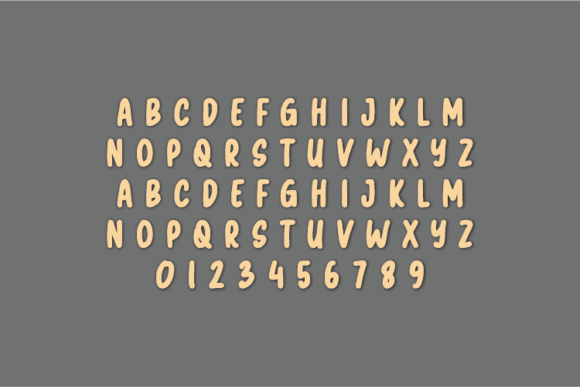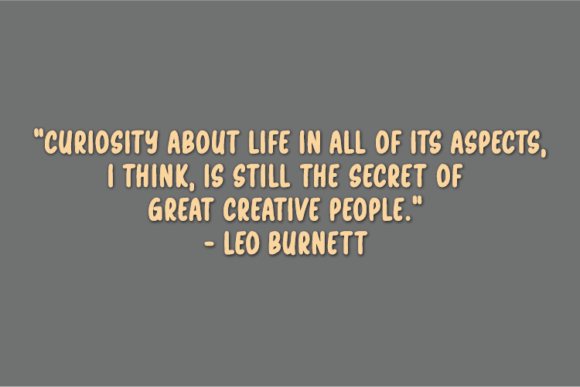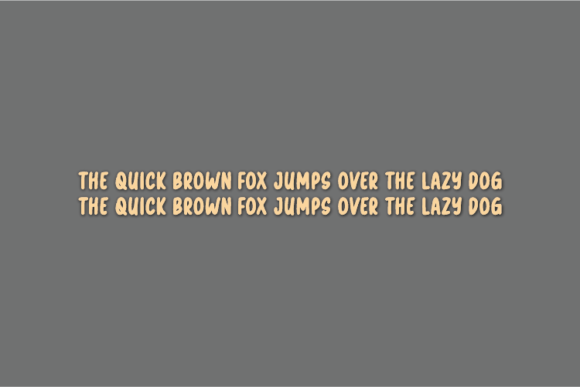
Introducing Caramelo Font: The Ultimate Handwritten Font for Designers and Crafters
Are you tired of using the same old fonts in your designs? Look no further than Caramelo Font, an adaptable and clean handwritten font that’s perfect for a wide range of projects. With its natural and unique style, Caramelo is incredibly fitting for a large pool of designs, and the only limit is your imagination!
What Makes Caramelo Font So Special?
Caramelo Font is a beautifully crafted handwritten font that’s designed to add a touch of elegance and sophistication to any design. Its clean and adaptable style makes it perfect for use in a variety of projects, from wedding invitations and branding materials to blog posts and social media graphics.
One of the standout features of Caramelo Font is its unique and natural style. Unlike other fonts that can look stiff or artificial, Caramelo has a warm and inviting feel that’s sure to capture the attention of your audience. Whether you’re looking to create a bold statement or a subtle impression, Caramelo Font is the perfect choice.
The Benefits of Using Caramelo Font
So why should you choose Caramelo Font for your next design project? Here are just a few of the benefits you can expect:
- Versatility: Caramelo Font is incredibly versatile, making it perfect for use in a wide range of projects. Whether you’re designing a logo, creating a social media graphic, or crafting a blog post, Caramelo Font is the perfect choice.
- Elegance: Caramelo Font has a sophisticated and elegant style that’s sure to elevate your designs. Its clean lines and natural curves make it perfect for creating beautiful and eye-catching graphics.
- Readability: One of the most important things to consider when choosing a font is readability. Caramelo Font is designed to be easy to read, even at small sizes, making it perfect for use in body text or captions.
- Uniqueness: With so many fonts out there, it can be hard to stand out from the crowd. Caramelo Font’s unique and natural style ensures that your designs will be instantly recognizable and memorable.
How to Use Caramelo Font in Your Designs
So now that you know a little bit more about Caramelo Font, let’s talk about how to use it in your designs. Here are a few tips to get you started:
- Pair it with bold colors: Caramelo Font looks amazing when paired with bold, bright colors. Try using it with a bold red or blue to create a statement piece.
- Use it for headings: Caramelo Font is perfect for use in headings and titles. Its elegant style makes it perfect for creating eye-catching graphics that draw the reader’s attention.
- Mix it with other fonts: Don’t be afraid to get creative and mix Caramelo Font with other fonts. Its unique style makes it perfect for pairing with bold sans-serif fonts or elegant script fonts.
Who Can Benefit from Using Caramelo Font?
Caramelo Font is perfect for a wide range of designers and crafters, including:
- Graphic designers: Whether you’re creating branding materials, social media graphics, or logos, Caramelo Font is a great choice.
- Bloggers: If you’re looking to add a touch of elegance to your blog posts, Caramelo Font is the perfect choice.
- Crafters: Whether you’re creating handmade cards, gift tags, or other crafts, Caramelo Font is a great choice.
- Small business owners: If you’re looking to create a professional and cohesive brand image, Caramelo Font is a great choice.
In conclusion, Caramelo Font is an amazing handwritten font that’s perfect for designers and crafters. Its natural and unique style makes it incredibly fitting for a wide range of designs, and its versatility, elegance, readability, and uniqueness make it a great choice for any project. So why not give Caramelo Font a try and see the difference it can make in your designs?